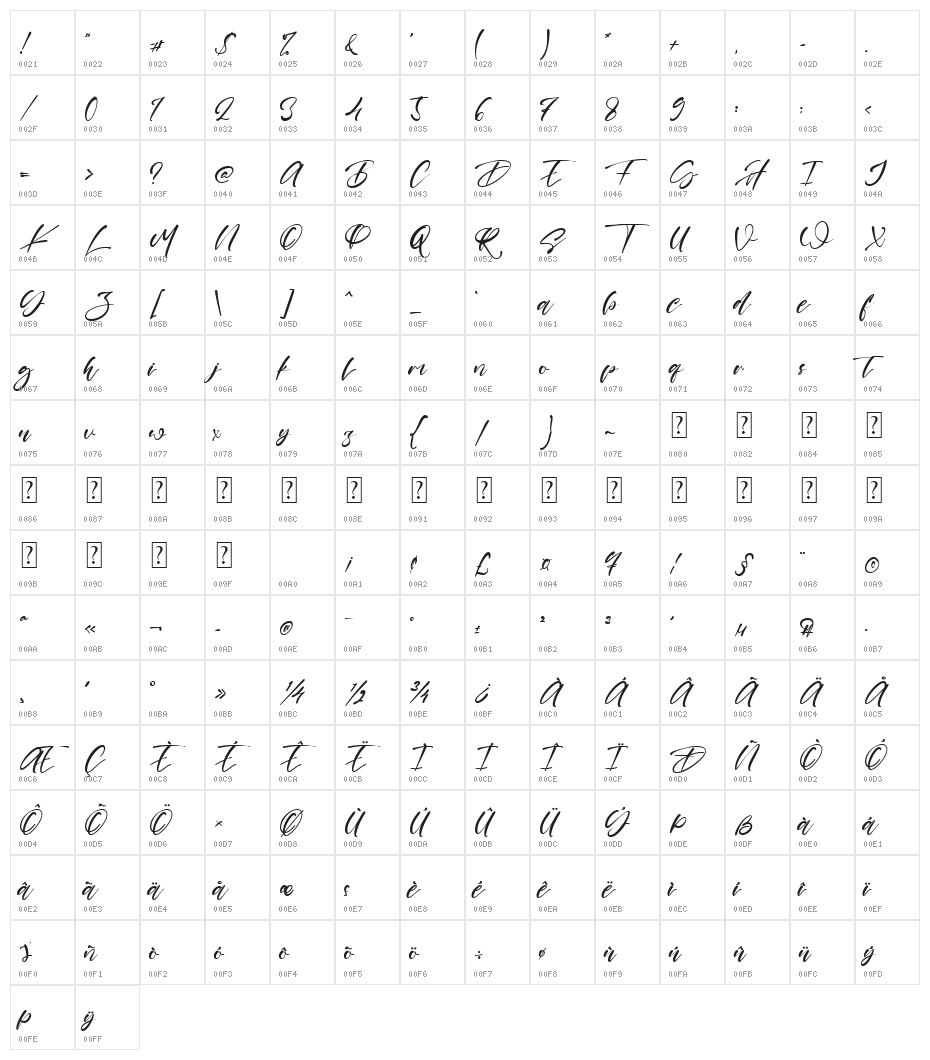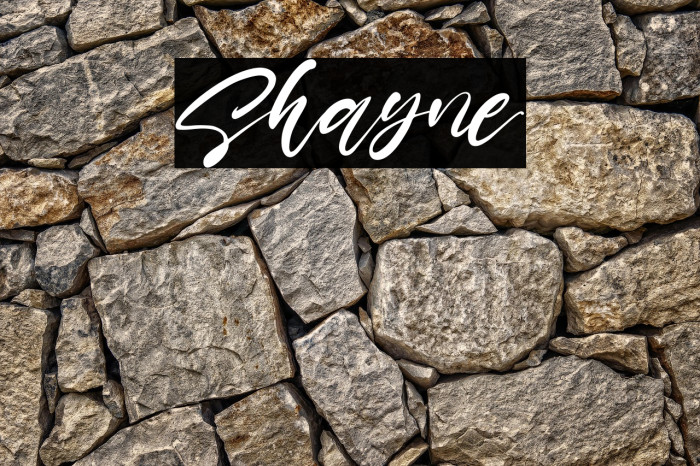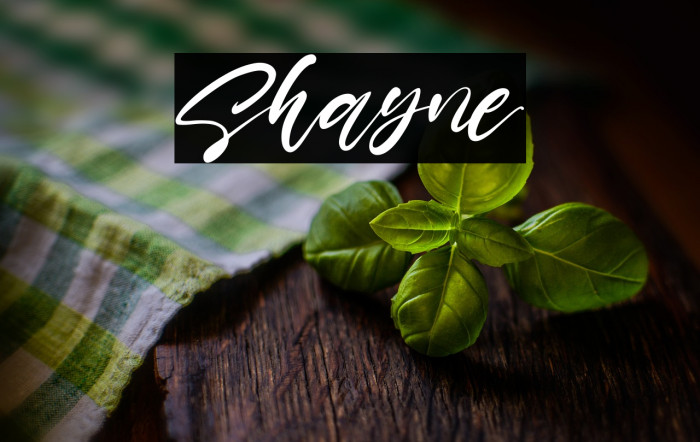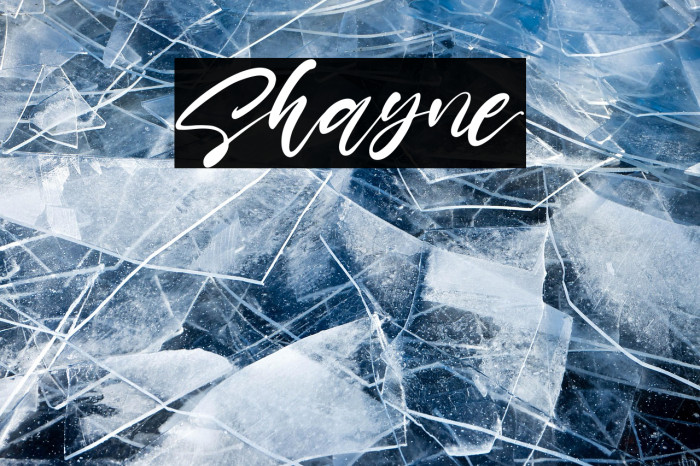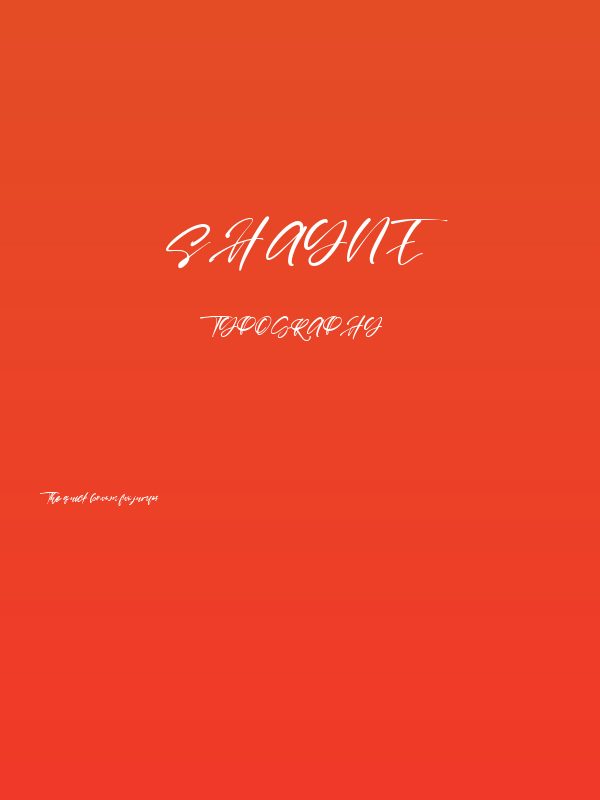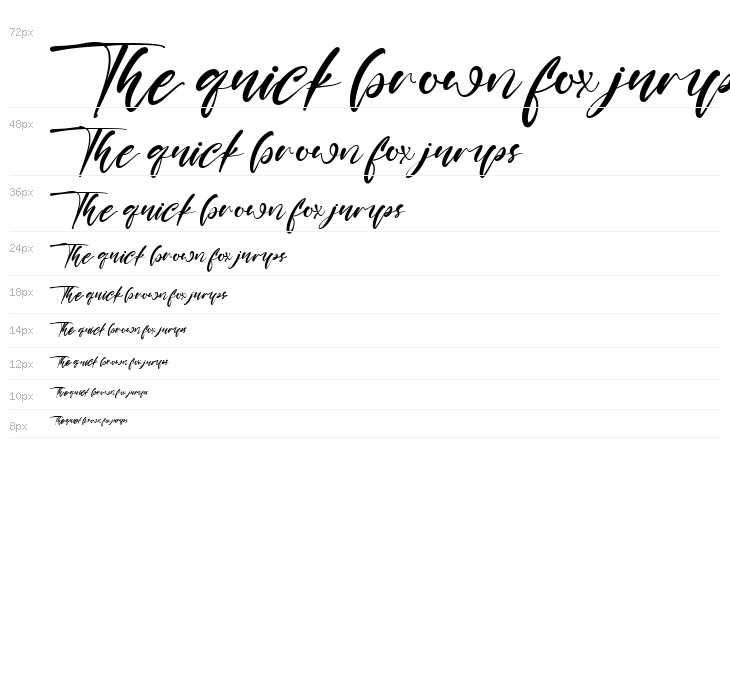
Shayne Font
Shayne Description
This font exudes a dynamic and fluid style, characterized by its elegant, sweeping curves and a handwritten aesthetic. The uppercase letters are bold and expressive, with a sense of motion that suggests a personal touch. The lowercase letters maintain this fluidity, offering a harmonious blend of thick and thin strokes that enhance its artistic flair. Numbers and special characters follow the same stylistic cues, ensuring consistency across all elements. The overall design is both modern and timeless, making it versatile for various creative applications.
| Use Case | Logos, Invitations, Branding |
| Proposed Projects | Ideal for wedding invitations, branding, logo design, and artistic projects requiring a personal touch. |